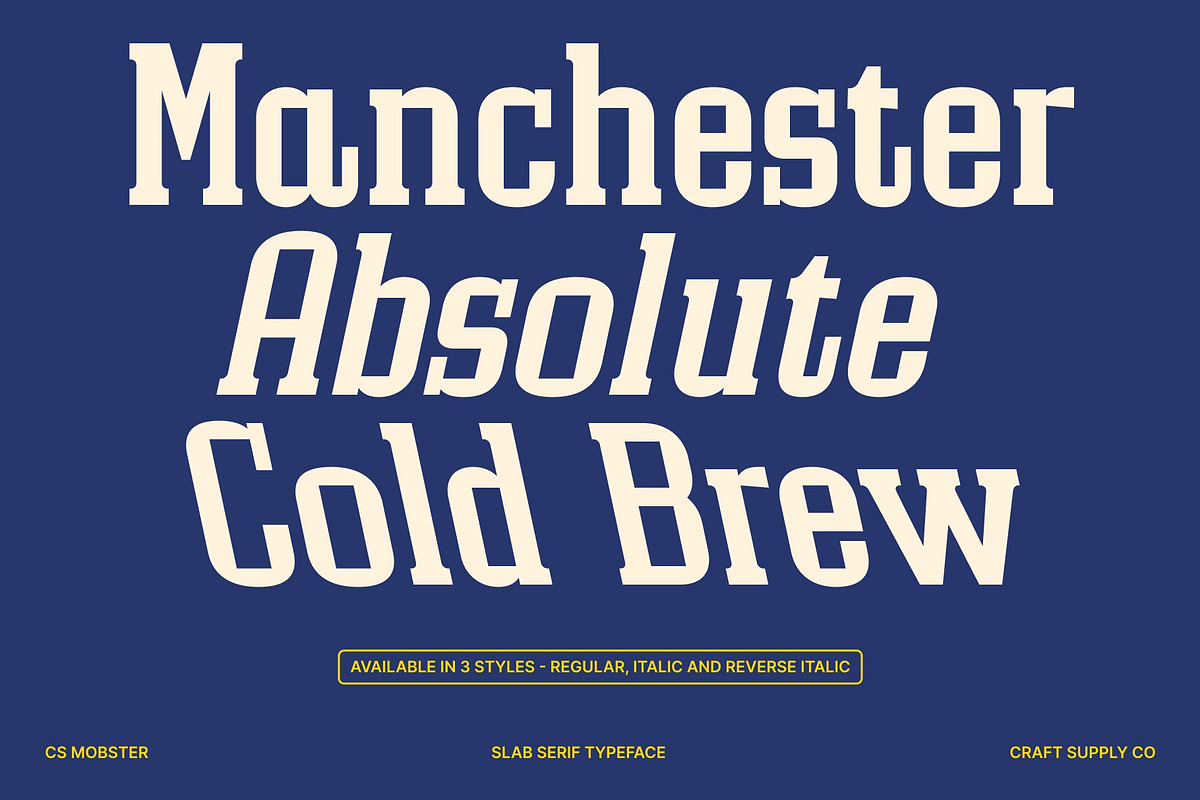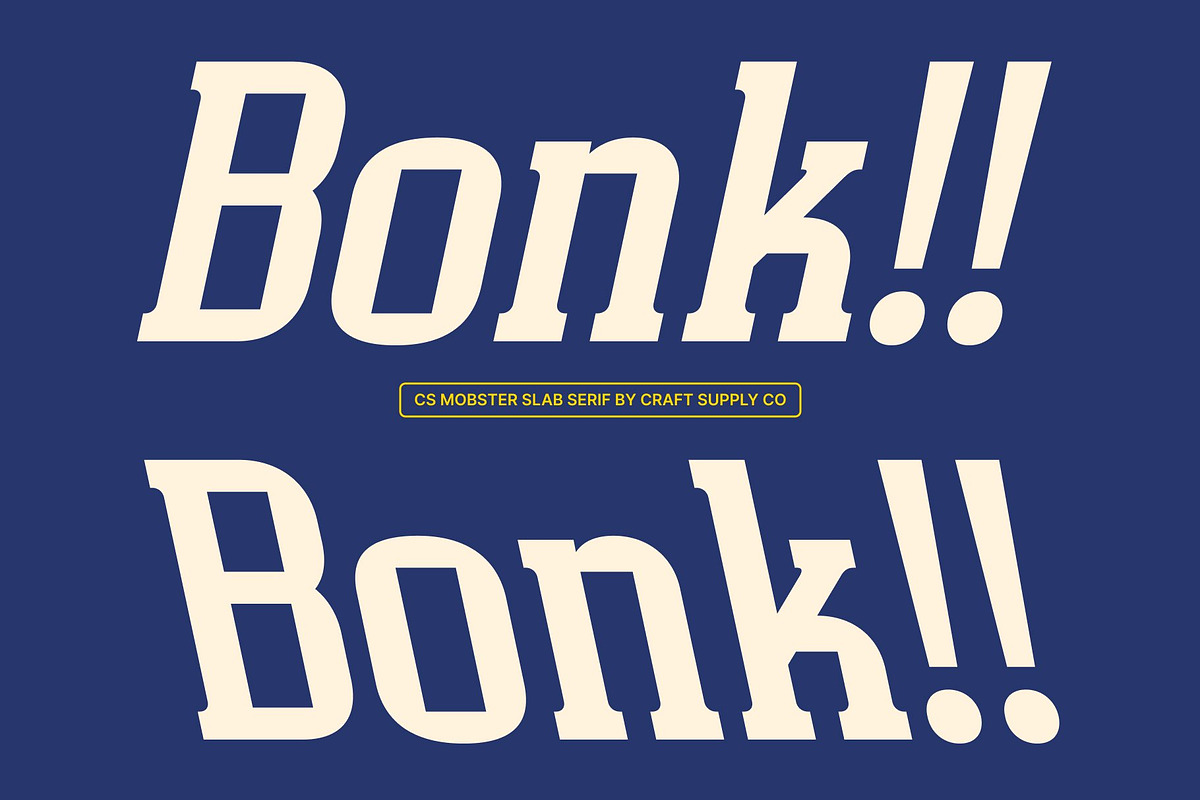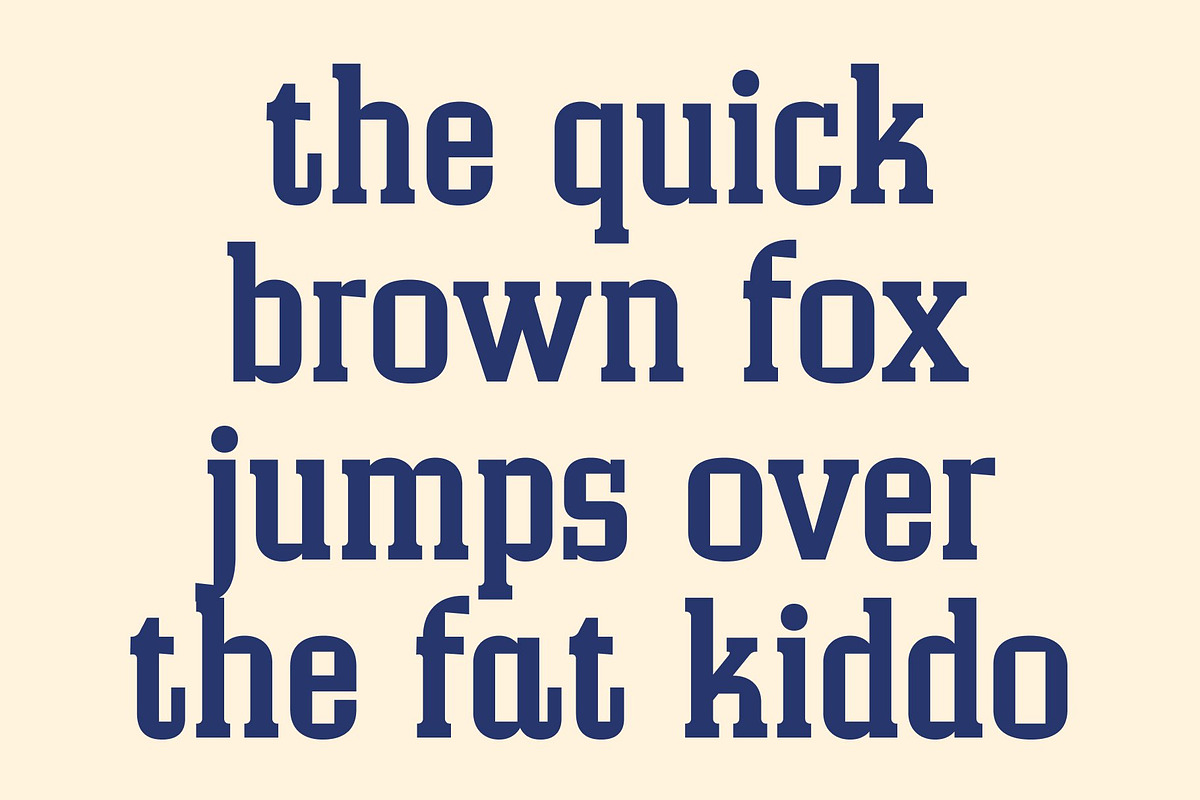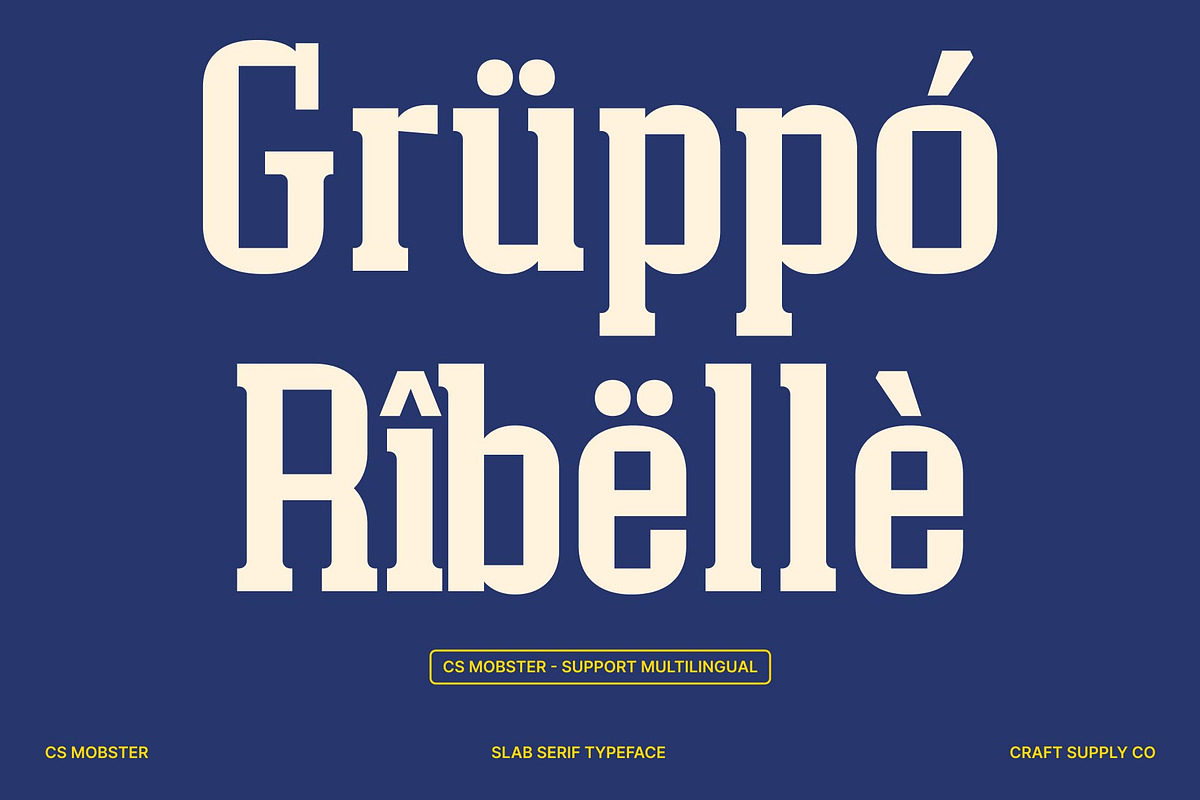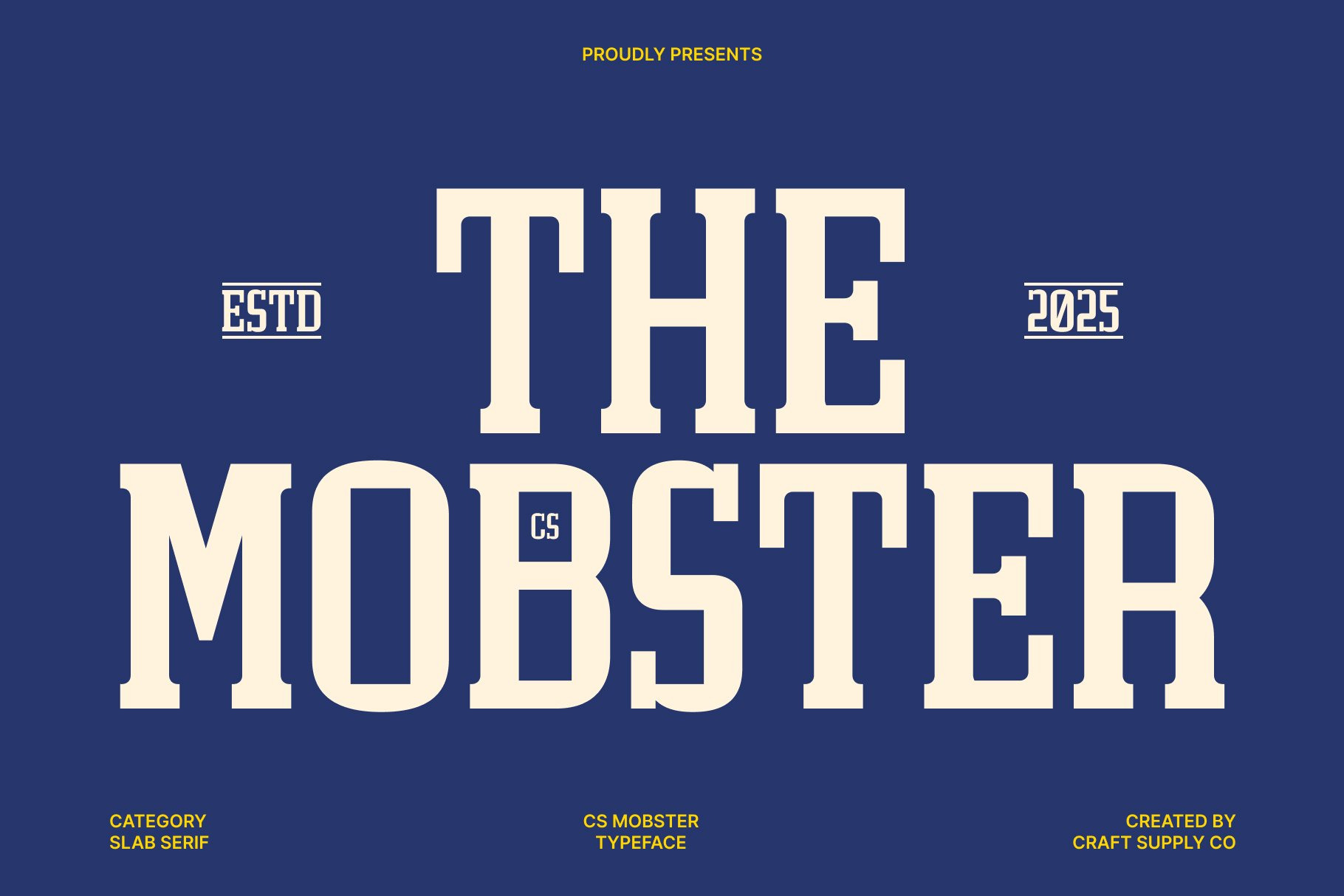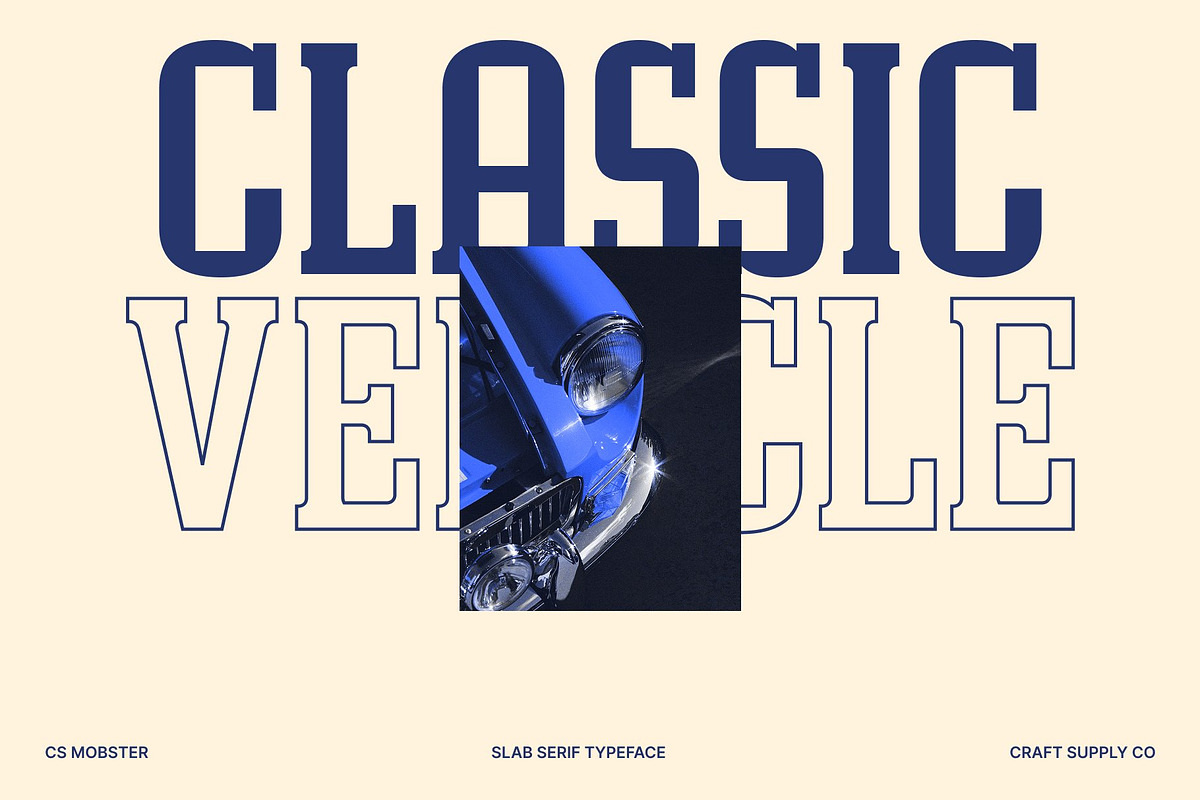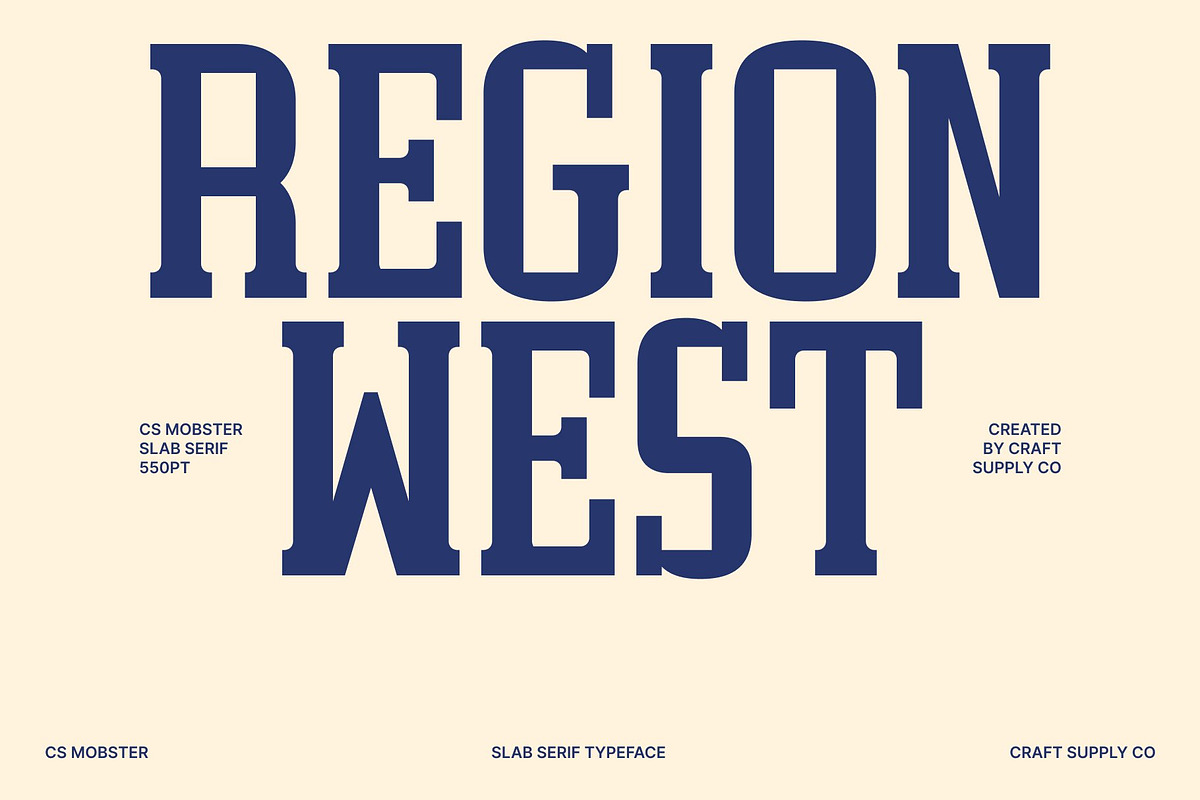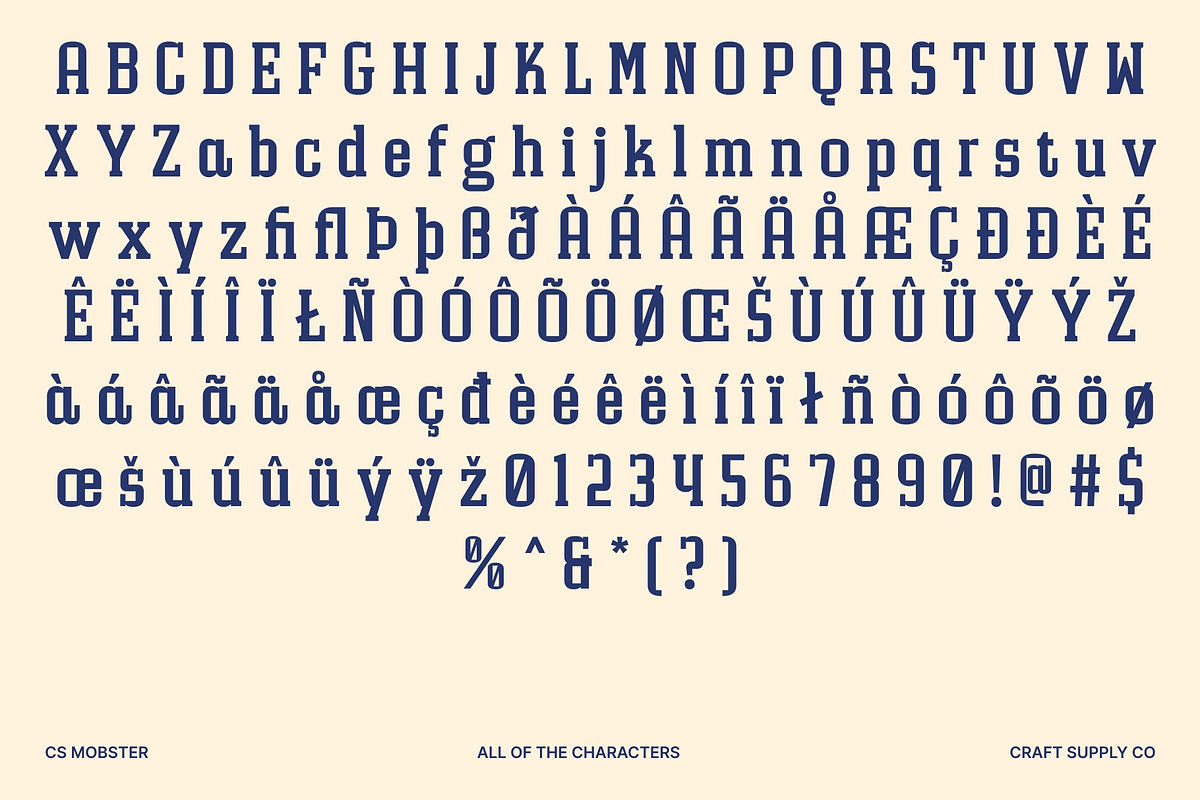
CS Mobster – Slab Serif Font
CS Mobster – Slab Serif Font with Timeless Strength
Classic Slab Serif Display Font This is a slab serif font designed to deliver clarity, strength, and timeless appeal. Inspired by mid-19th century typefaces, this font embraces generous slab serifs and solid construction while maintaining a neat and beautifully balanced letter arrangement. The result is a typeface that feels dependable, confident, and visually refined, suitable for both formal and non-formal design contexts.
Neat Letterforms with Strong Structure Each character in this font is carefully crafted with clear proportions and consistent spacing, creating a harmonious and readable composition. The sturdy slab serifs give the font a grounded, hard-working appearance, while the clean lines ensure a modern and polished finish. This balance allows to stand out without feeling overly decorative or heavy.
Vintage Inspiration with Modern Versatility Rooted in the typographic traditions of the mid-1800s, captures the classic spirit of early slab serif typography while adapting it for contemporary use. Its historical influence adds character and authority, making the font feel trustworthy and enduring. At the same time, its clean execution keeps it relevant for modern layouts and branding systems.
Ideal for Headlines, Logos, and Branding This font performs exceptionally well in headlines, logos, jackets, packaging, and editorial designs that require a strong yet elegant voice. Its slab serif structure enhances visibility and impact, ensuring your message is delivered with confidence and style.
- CS Mobster Regular
- CS Mobster Italic
- CS Mobster Reverse Italic